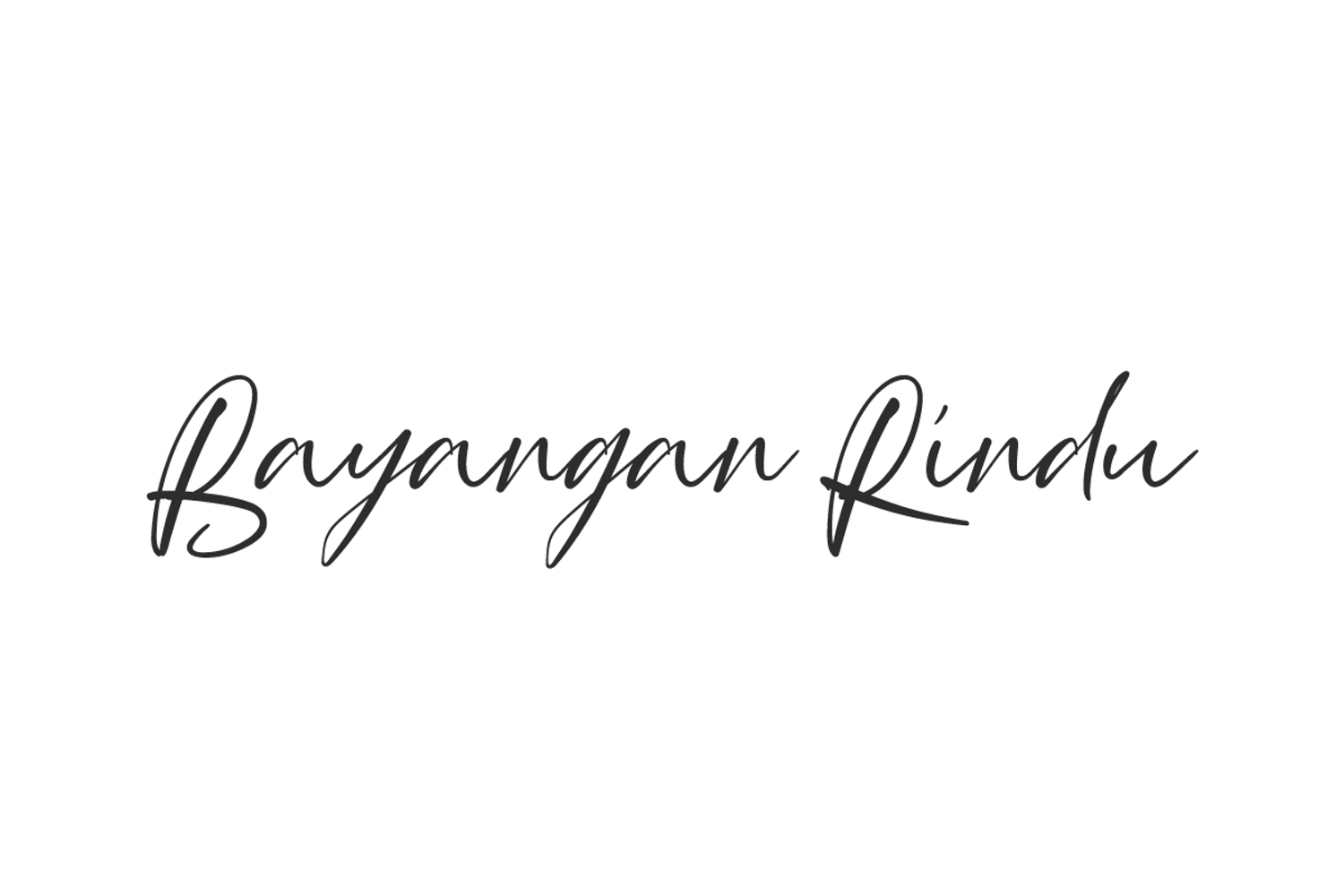
Bayangan Rindu
Bayangan Rindu Font is a luxurious handwritten signature font that exudes elegance and modern sophistication, this font radiates a stylish yet timeless charm. The subtle curves and delicate letterforms make it ideal for blogs, brand logo, card design, cover, headers, invitation, jewelry, label, logo, product packaging, quotes, sticker, template, title, website, etc.
Bayangan Rindu Font includes a complete set of Basic Uppercase and Lowercase Characters, Numbers, Punctuation Marks and Symbols. With its fluid, gracefully arranged strokes and well-crafted balance. Its modern yet elegant appeal ensures versatility while retaining its uniquely graceful personality. Ideal for advertising, apparel, beauty clinic, cosmetic, fashion, graphic design, handicraft, jewelry, publishing, skincare, wedding, etc.